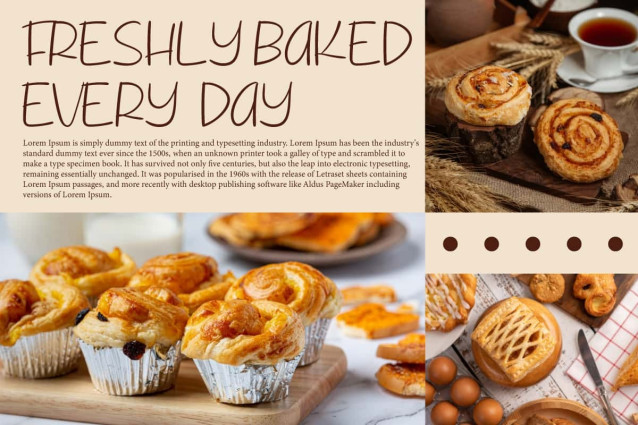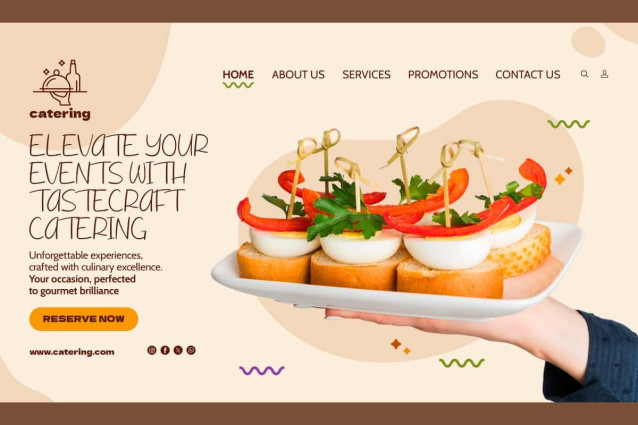
Let Me Down Font
Let Me Down Font is a fun display font of charming handwritten pen script that brings warmth and authenticity to the letters. Original handmade graceful and flowing strokes converted to digital for easy use for a variety of print and digital purposes. Perfect for banners, brand logo, brochure, covers, flyer, headers, invitation, mockup, quotes, template, title, stationery, sticker, watermark, website, and much more.
Let Me Down Font comes with a refined aesthetic and quite cute, it presents a friendly and easy-to-understand font typeface. Perfect for creating a personal touch that feels light. This font will be useful for accessories and gifts, bakery, brand of milk, cafes, clothing brand, event organizer, fashion, graphic design, handicraft, photography, publisher, restaurant, and much more.